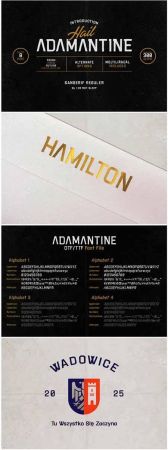
If you are looking for a font with a dashing appearance, you have entered the right room. Adamantine was created for that. looks manly, wild, strong and naughty. very suitable when you get a project related to Cafe racer, font for Barber Shop, Font for a magazine, flyer, Logo, T-shirt And anything else. Look at some previews that use Adamantine fonts, the design looks fresh, but in ethics that still looks cool, polite, luxurious and a little wild.